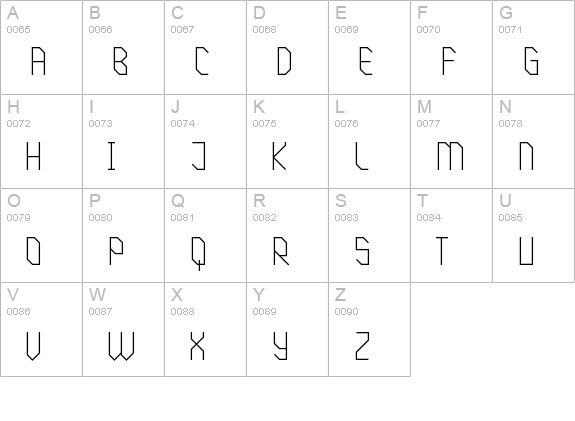
WhichitTwo Font Details
WhichitTwo font is a stunning display font that will add a touch of elegance to any design project. With its unique and stylish letterforms, this font is perfect for creating eye-catching headlines, logos, and branding materials. What sets WhichitTwo font apart is not only its aesthetic appeal but also the fact that it is completely free to download. That's right, you can enhance your designs with this beautiful font without spending a dime. Whether you are a professional designer or a hobbyist, WhichitTwo font offers you the opportunity to elevate your creative projects without breaking the bank. It's versatility allows it to be used in various design contexts, from print materials to digital platforms. To get your hands on this amazing font, simply head over to FontsMarket.com. There, you can freely download WhichitTwo font and start incorporating it into your designs immediately. The user-friendly interface of the website makes it easy to navigate and find the font you need, so you can focus on creating without any hassle. So don't miss out on the chance to enhance your designs with the elegance and sophistication of WhichitTwo font. Download it for free today at FontsMarket.com and watch your creations come to life with this extraordinary typeface.